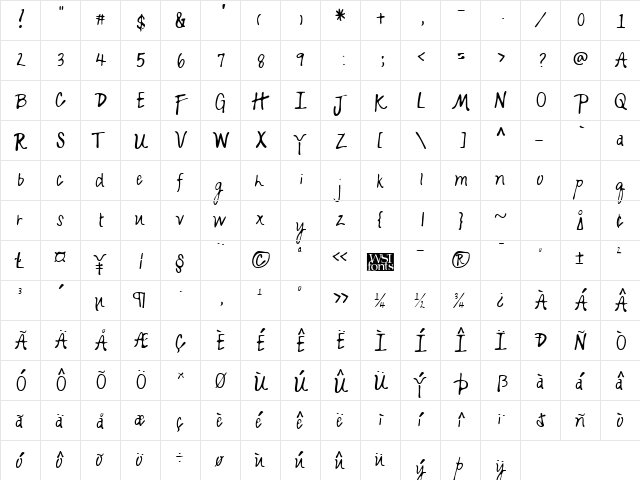
KanesHand Regular Font Preview
KanesHand Regular
KanesHand Regular Font Details
Design Context for KanesHand Typeface
KanesHand brings a calligraphic fluidity to the page — its connecting strokes and expressive curves give it an unmistakably human quality.